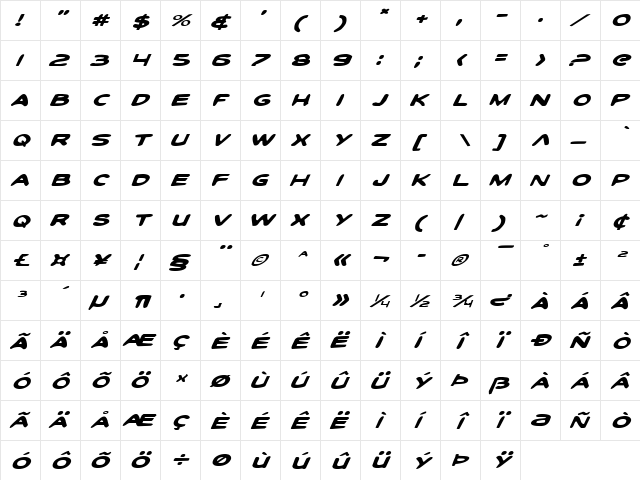
Toon Town Industrial Exp Ital Font Preview
Toon Town Industrial Exp Ital
Design Context for Toon Town Industrial Exp Ital Typeface
Toon Town Industrial Exp Ital offers clean, dependable letterforms without strong stylistic allegiance, making it a practical choice for designers who need flexibility.
Pro Tip: Pair Toon Town Industrial Exp Ital with a font of contrasting weight or personality to build a more expressive typographic hierarchy.